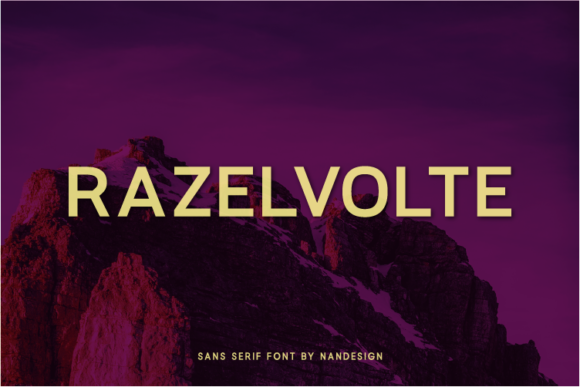
Unleash the power of Razelvolte, the font that will make your designs shine with elegance and sophistication. This sans serif font, crafted by the talented Nan Design, possesses a clean, thin, and smooth vibe that effortlessly elevates any project you undertake.
Transport yourself into a world of boundless creativity as you explore the limitless possibilities that Razelvolte presents. Its sharp edges and flowing curves dance together in perfect harmony, captivating your audience with their striking visual appeal.
Step into the spotlight and make a bold statement with Razelvolte. Whether you're crafting eye-catching advertisements, designing captivating logos, or creating stunning social media posts, this font will elevate your designs to new heights.
With Razelvolte, your words become art. Its clean lines and crisp angles lend a touch of sophistication to any project, ensuring that your message is communicated with clarity and impact.
Unleash your inner artist and let Razelvolte ignite your passion for design. Dive into a world of endless possibilities and let your creativity flourish. Experience the magic of Razelvolte today and transform your designs into masterpieces.